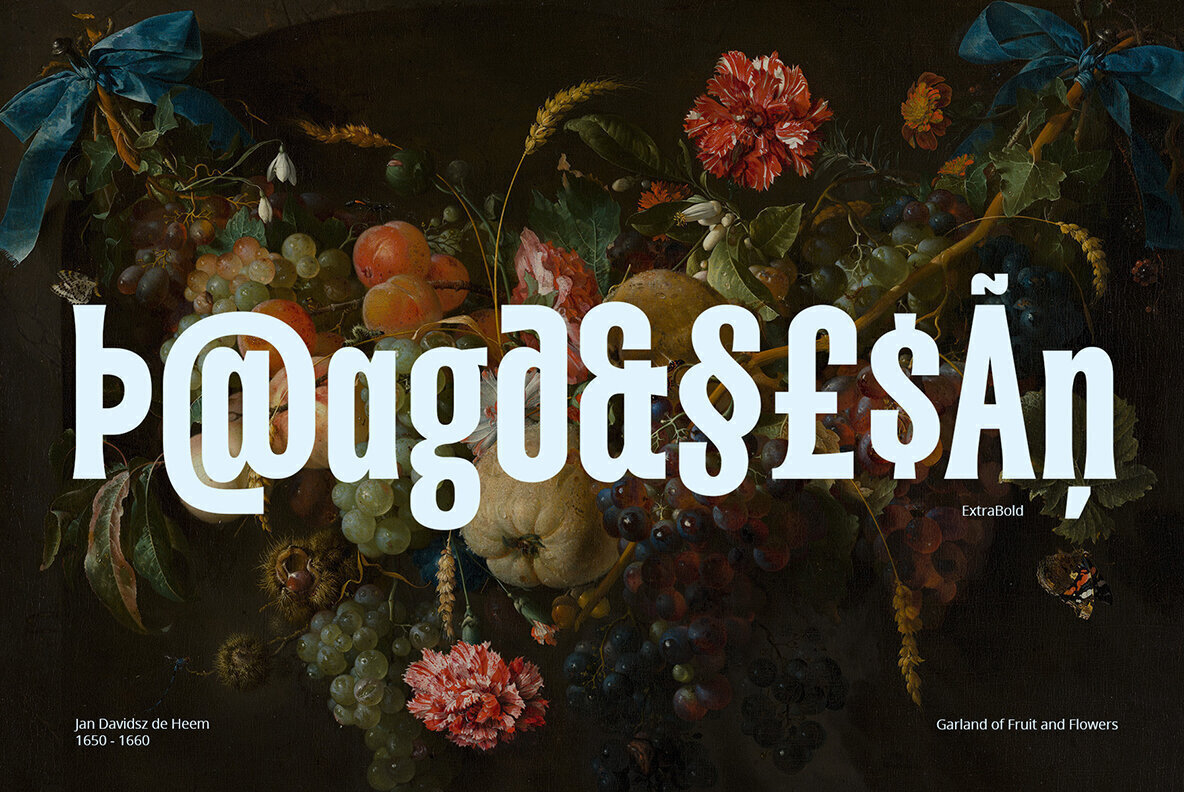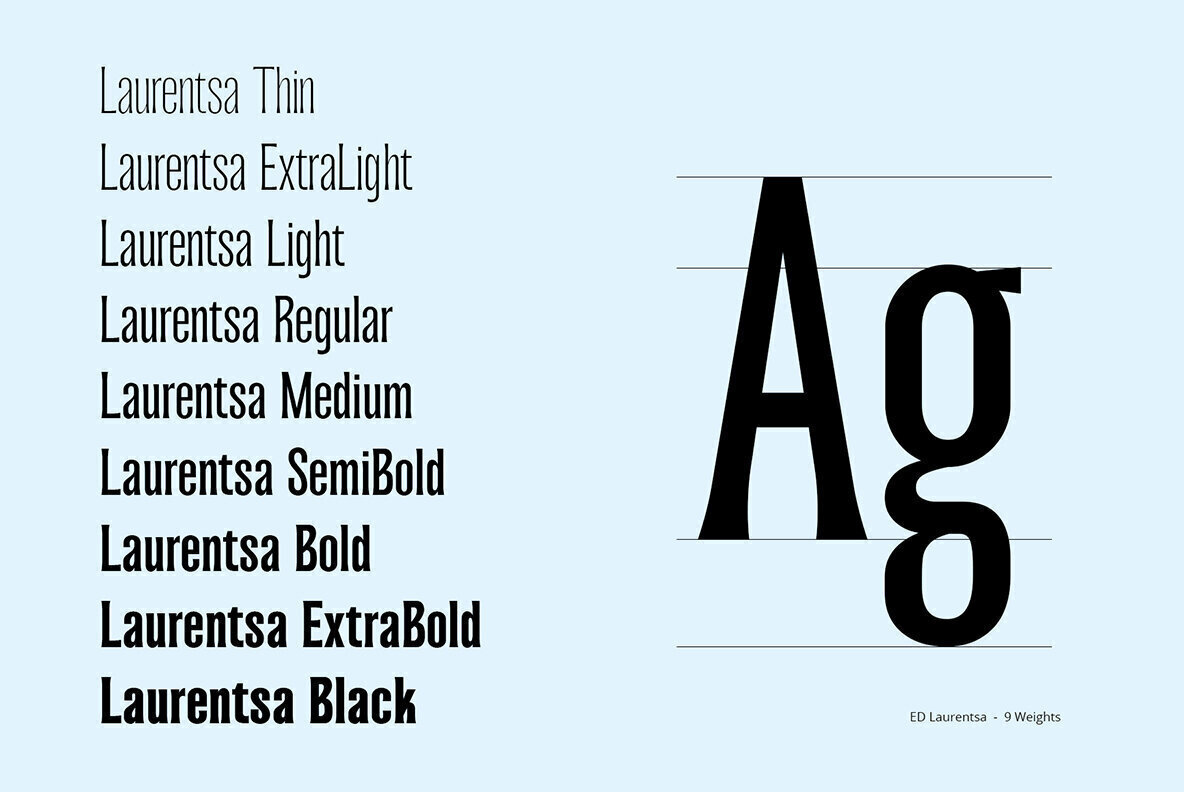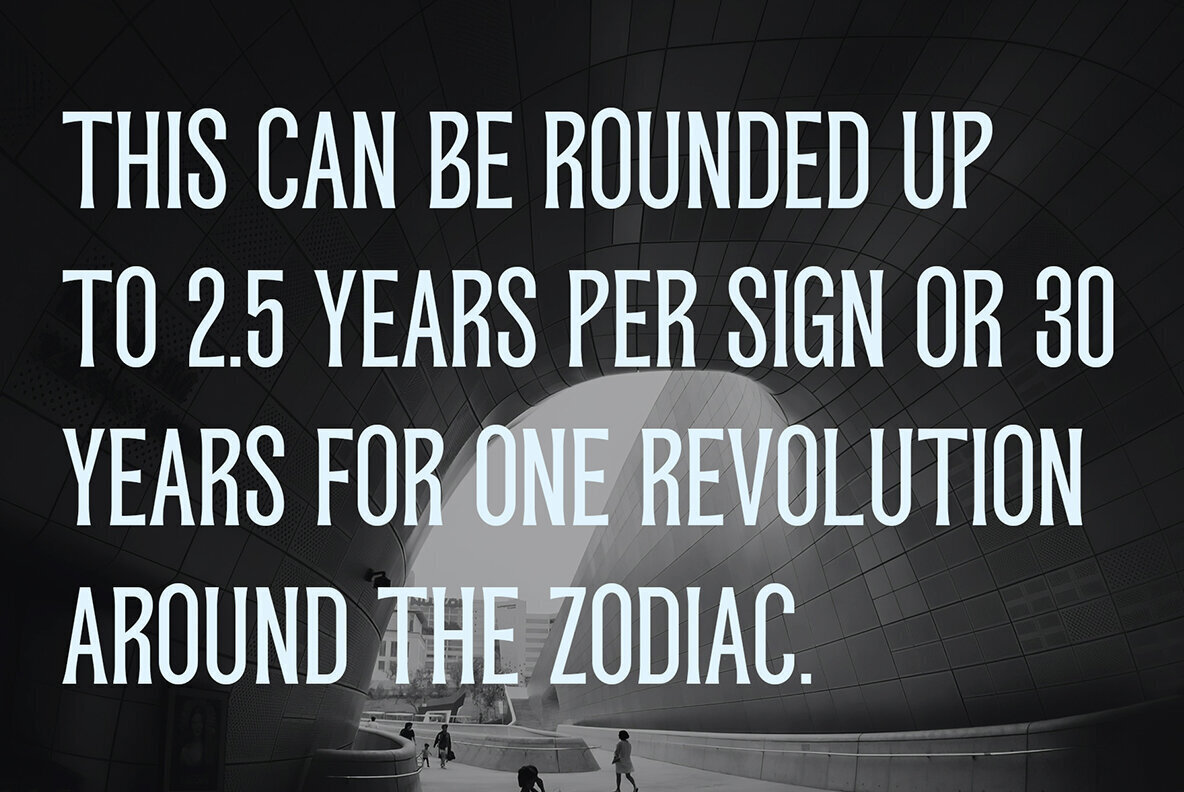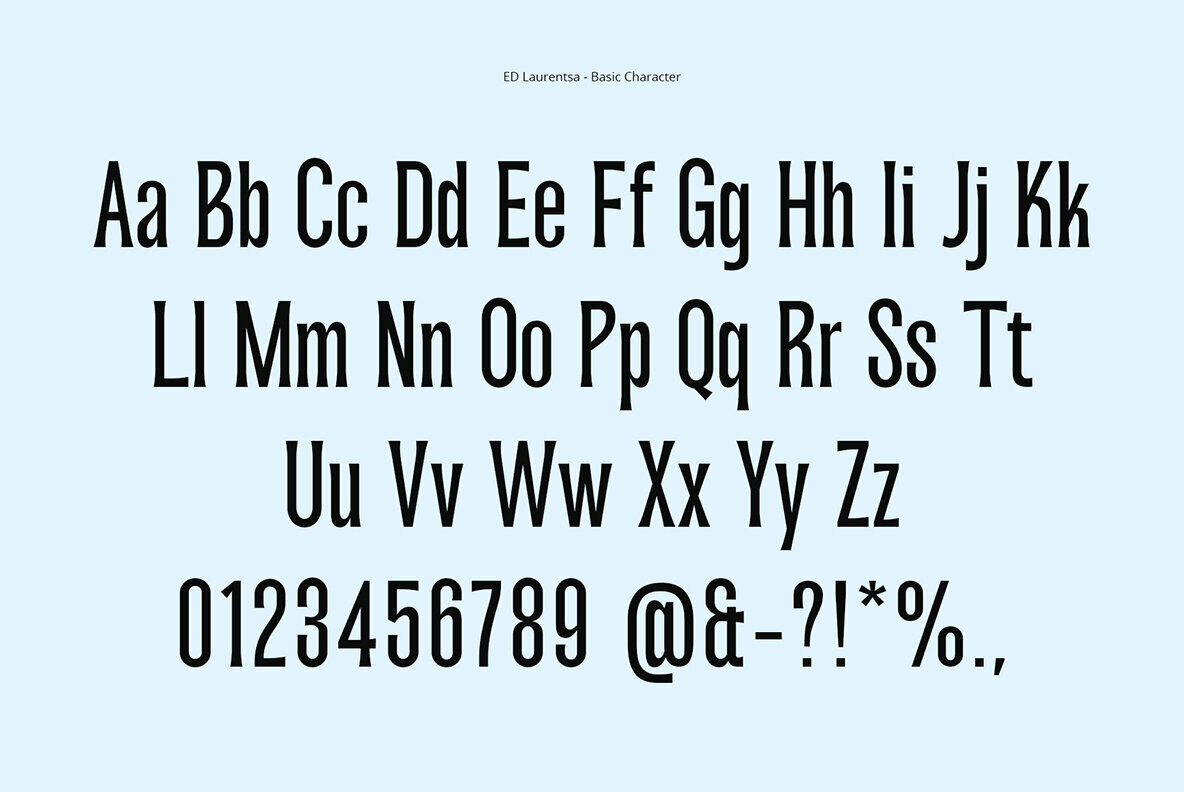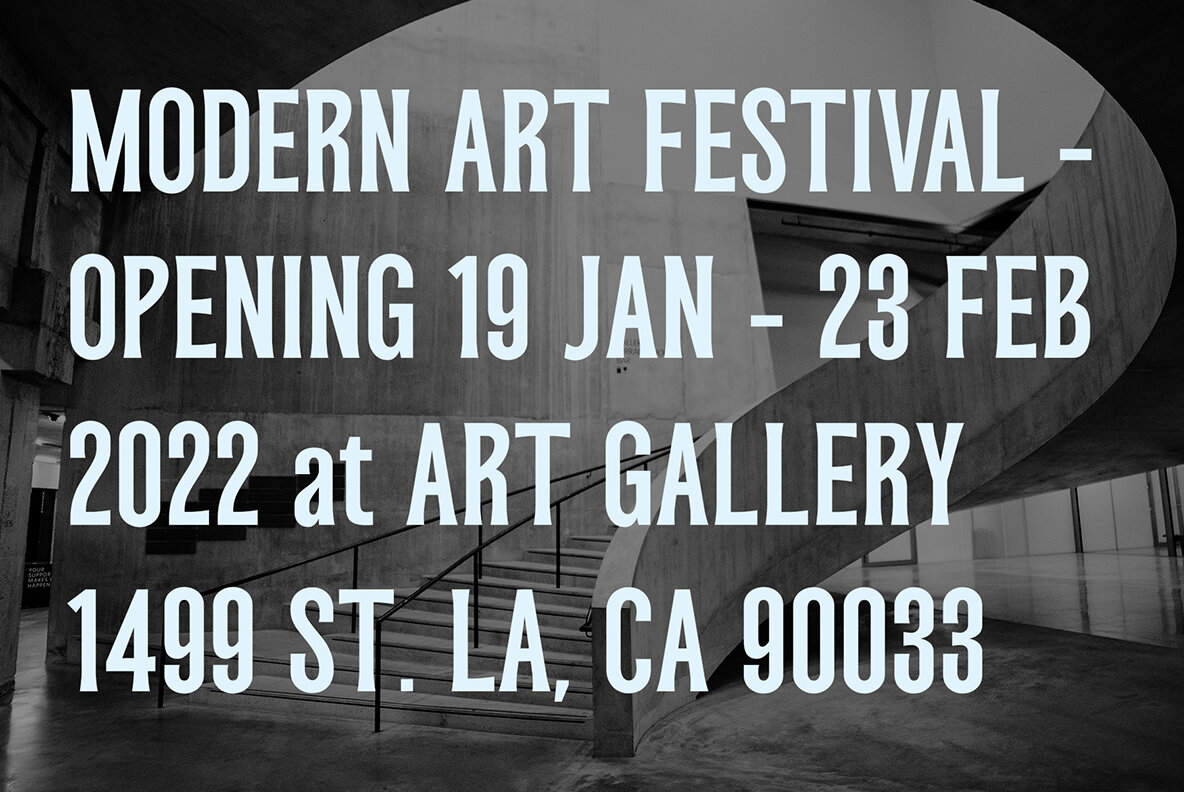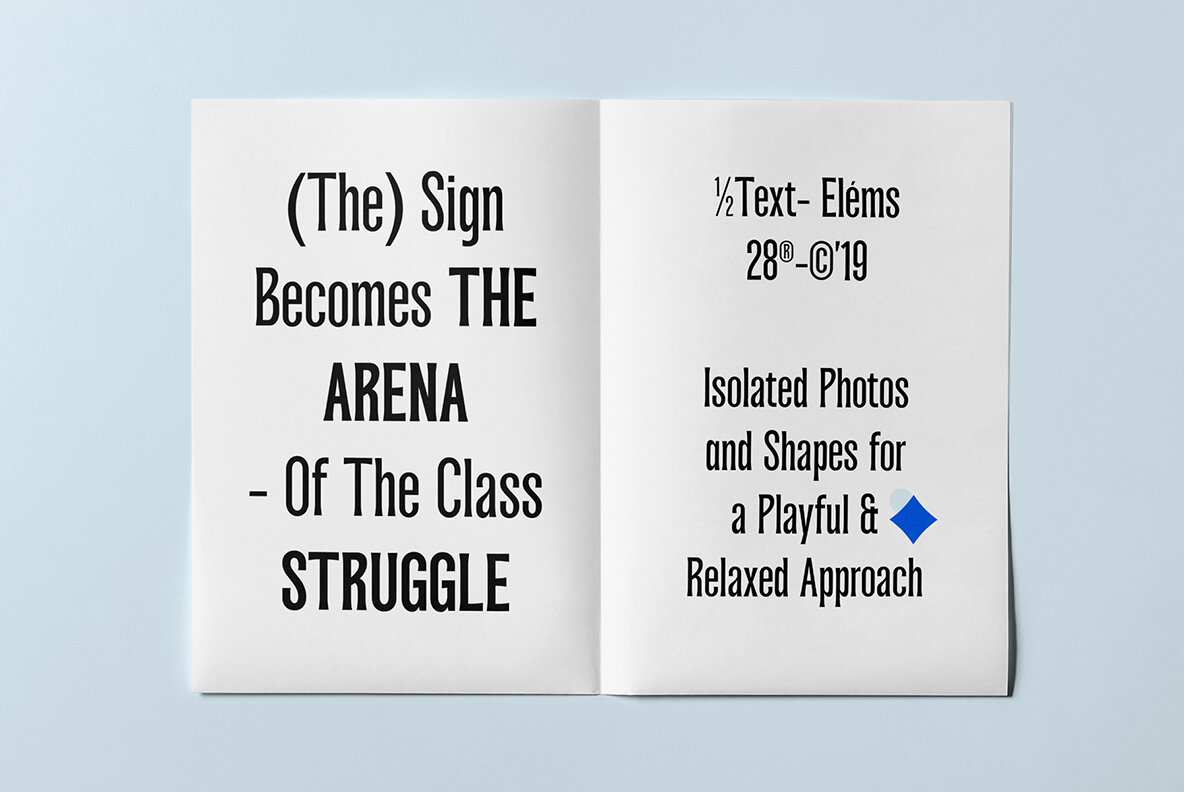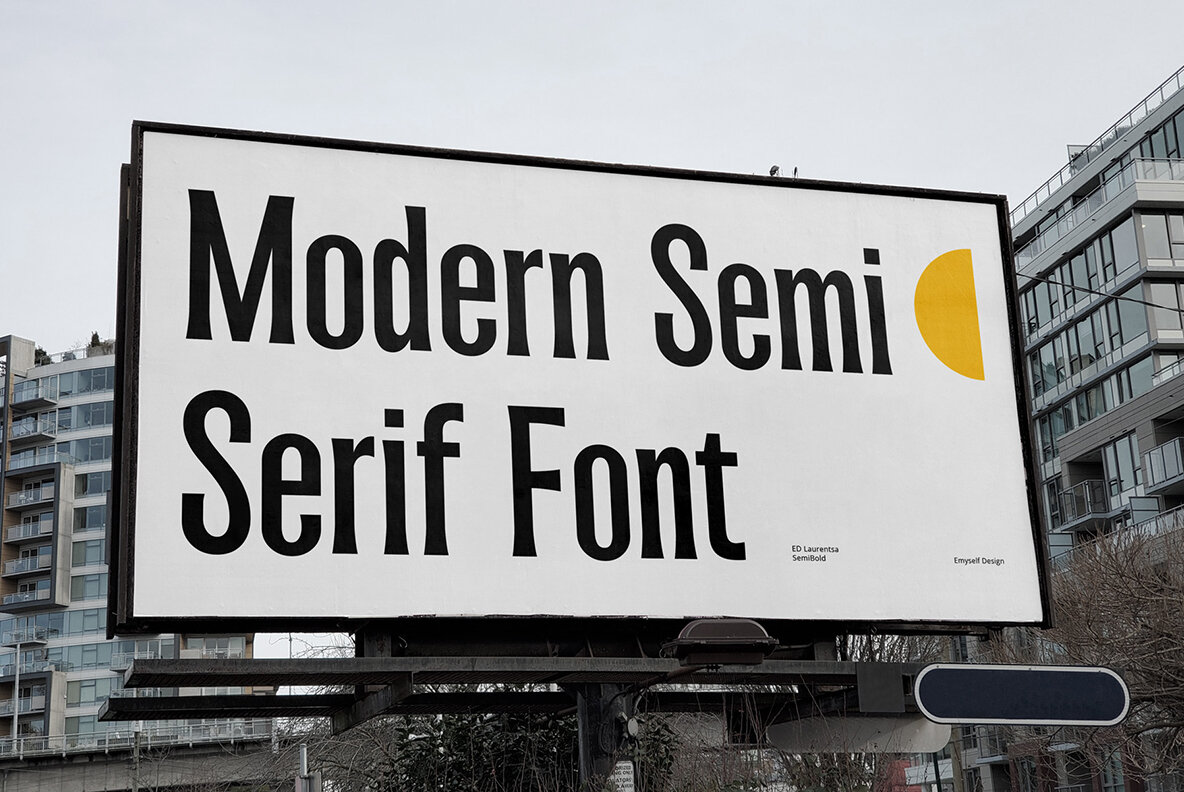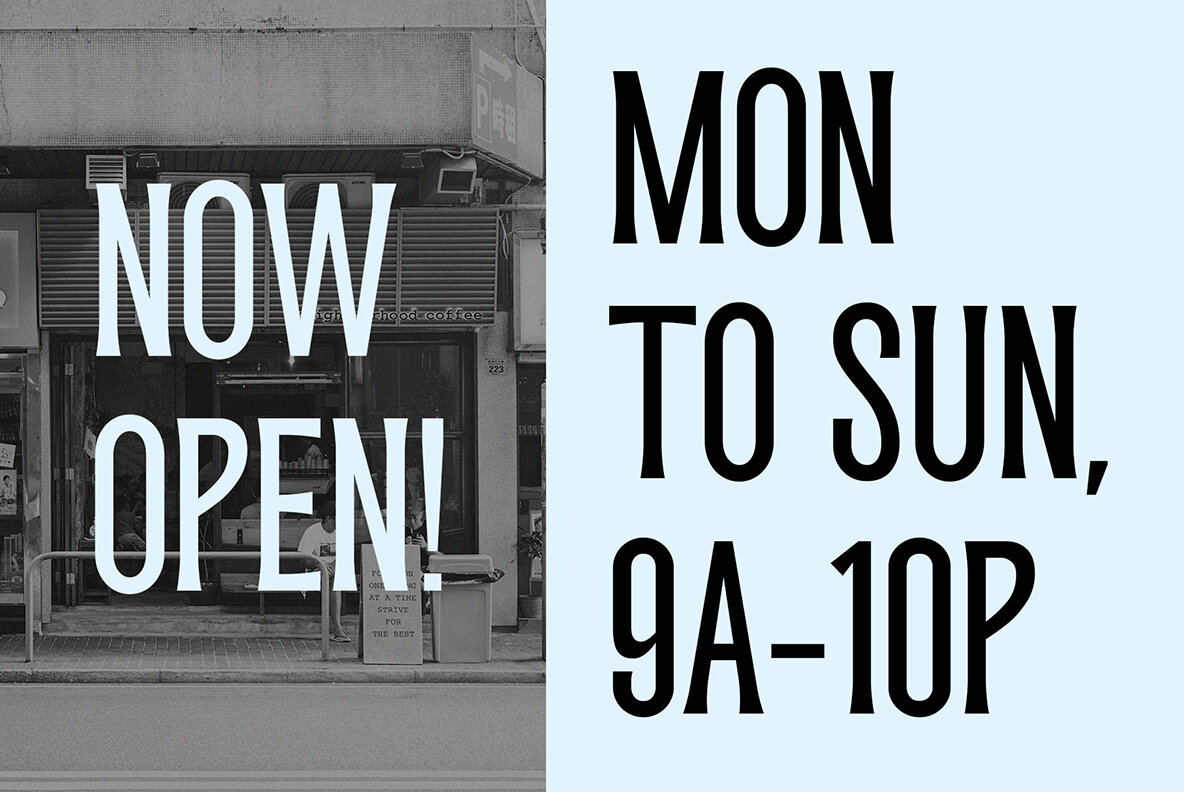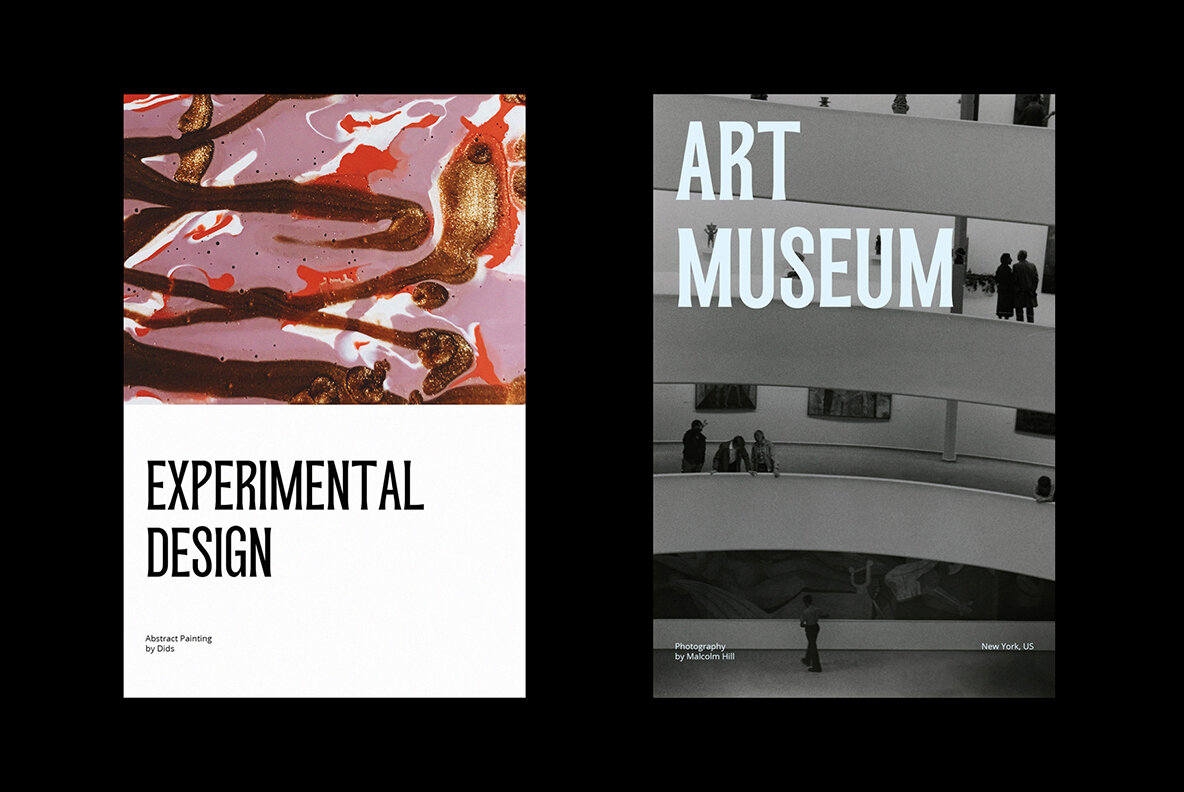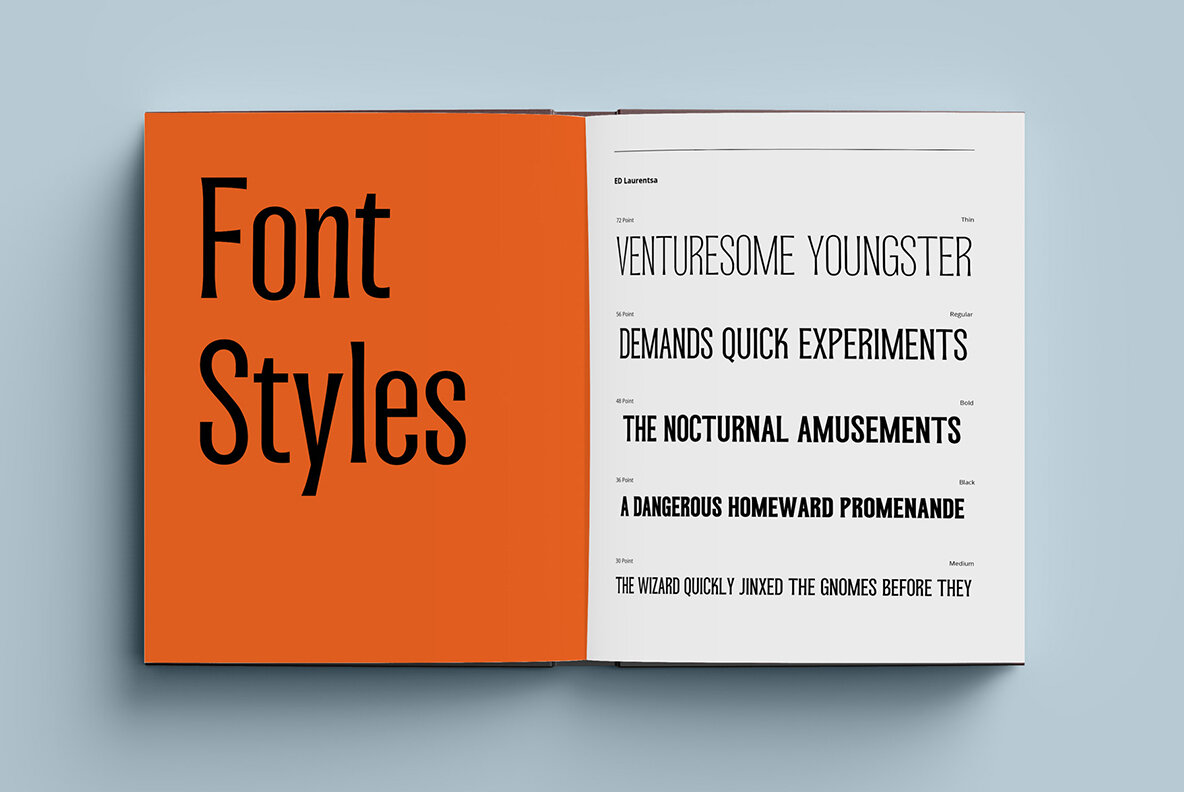
ED Laurentsa Font
ED Laurentsa has a classic minimalist look with a condensed style and has a wide variety from thin to black to suit your needs. This font is perfect for your design needs, such as logo design, branding, apparel, headings, web, etc.
This font can also be easily combined with other fonts to create the perfect typography. Bold fonts are perfect for displays such as logos, or in-text headings. while the font with a thin style is suitable for covers, posters, or social media posts.